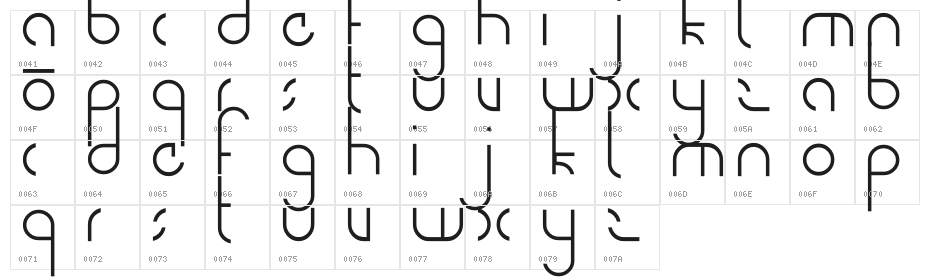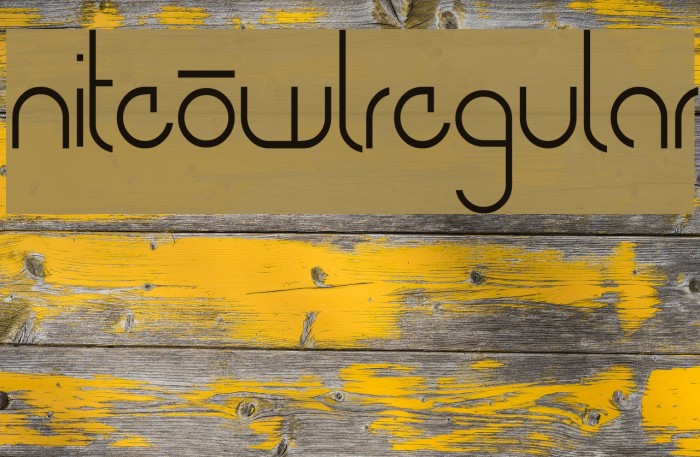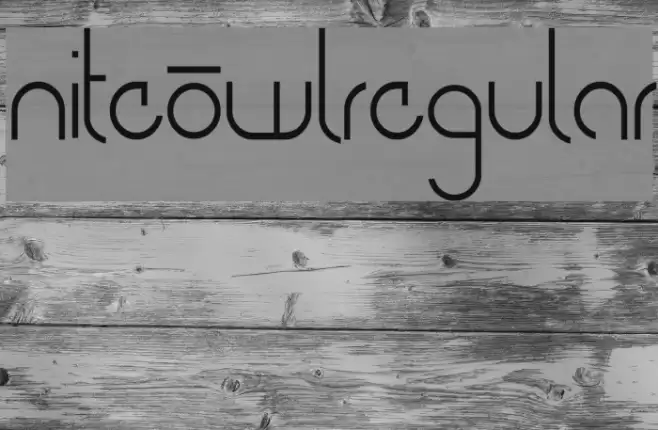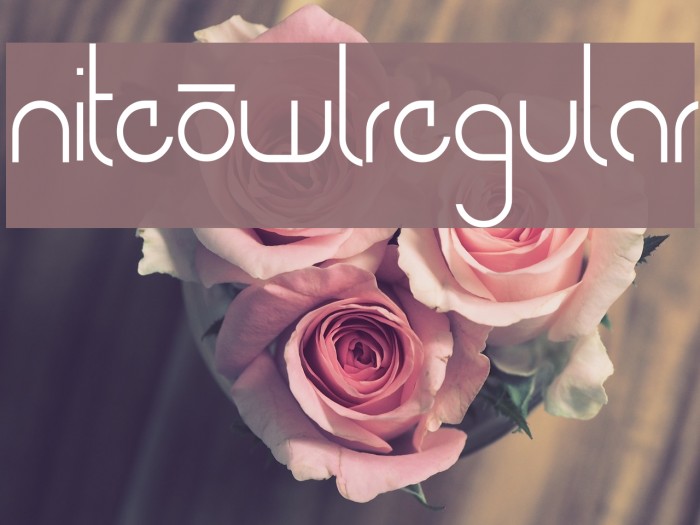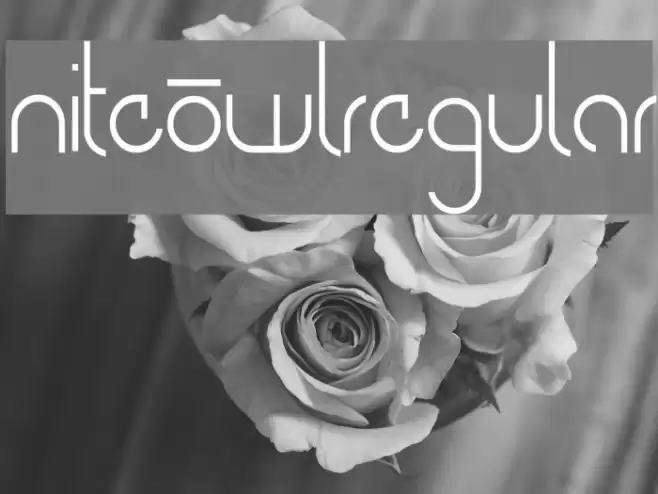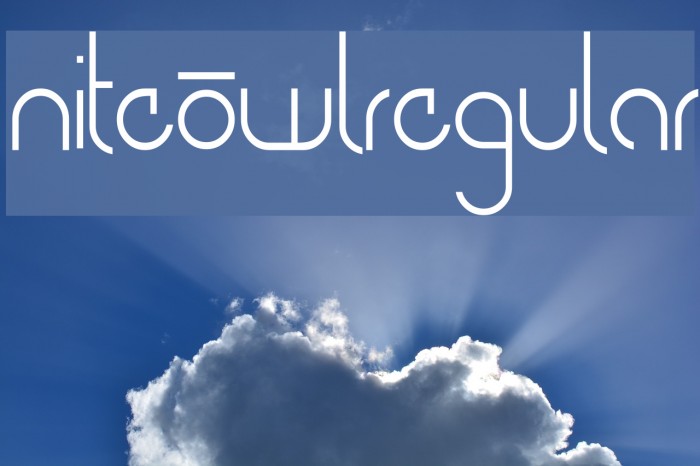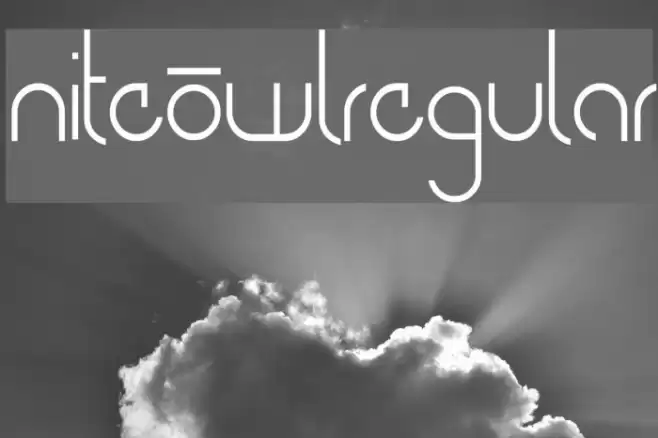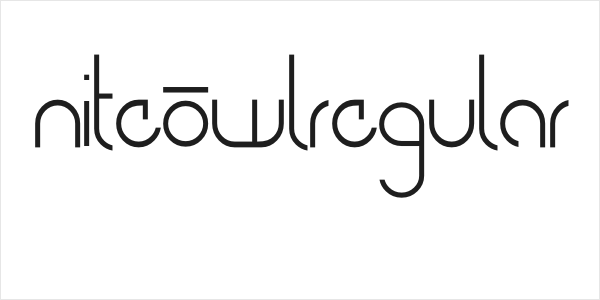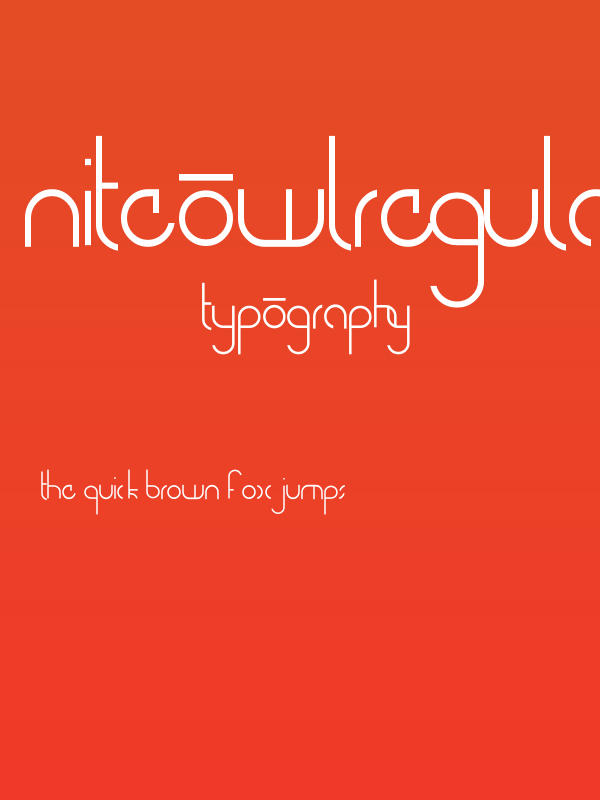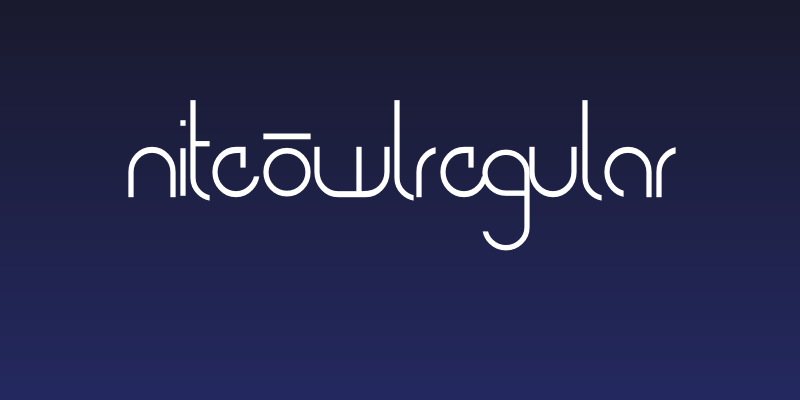
NiteOwl-Regular Font
NiteOwl-Regular Description
This font features a modern, geometric design with clean lines and a minimalist aesthetic. The characters are constructed with a consistent stroke width, giving it a uniform appearance. The rounded edges and open counters contribute to its legibility and contemporary feel. The font's unique style is characterized by its sleek and futuristic look, making it suitable for a variety of design applications. It maintains a balance between form and function, offering both visual appeal and readability.
| Proposed Projects | Ideal for branding, digital interfaces, modern advertising, and editorial design. |